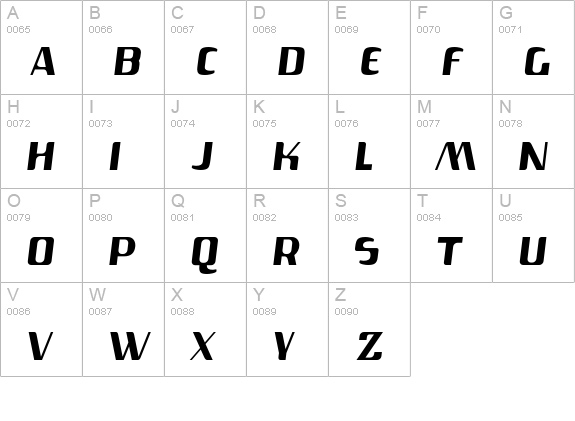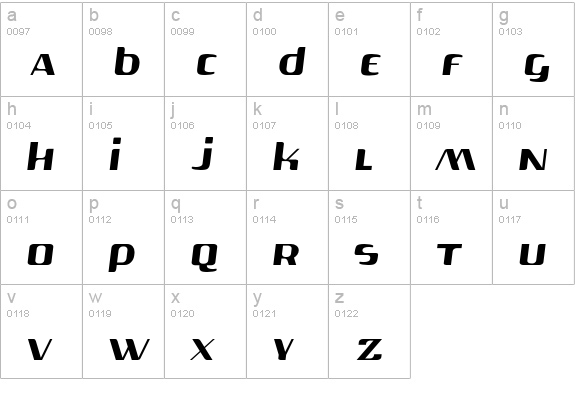
GasLite Font Details
GasLite font is a stylish and modern typeface that exudes a sense of sophistication and elegance. With its clean lines and unique design, GasLite is perfect for adding a touch of class to any project. This versatile font is ideal for a wide range of applications, from logos and branding to headlines and body text. One of the best things about GasLite font is that it is completely free to download. You can easily access this stunning font at FontsMarket.com, where you can download it and start using it in your projects right away. Whether you're a designer looking to elevate your work or a business owner in need of a fresh new look, GasLite font is sure to impress. Don't miss out on this fantastic opportunity to enhance your designs with this beautiful and free font.